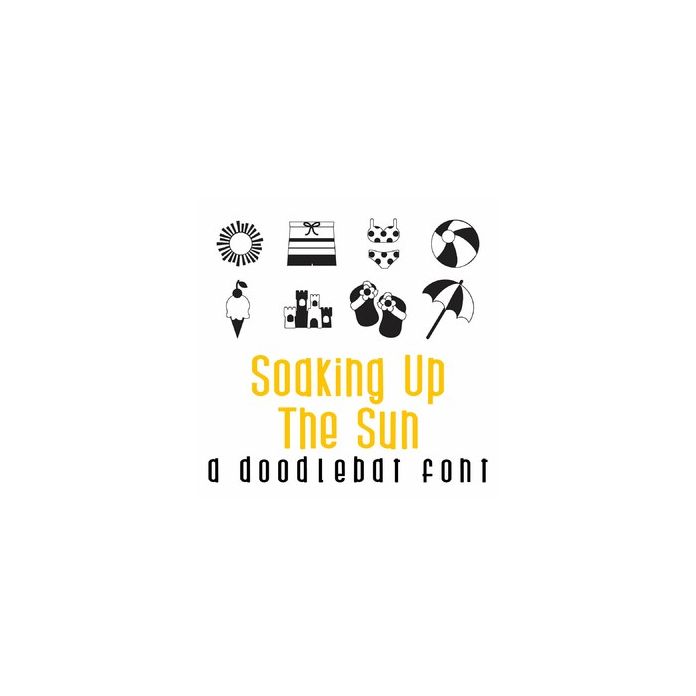
soaking up the sun doodlebat font
This fun doodlebat font features 26 sun and beach icons. Perfect for cards, gifts, decor, crafts, scrap book pages, planner stickers and more!